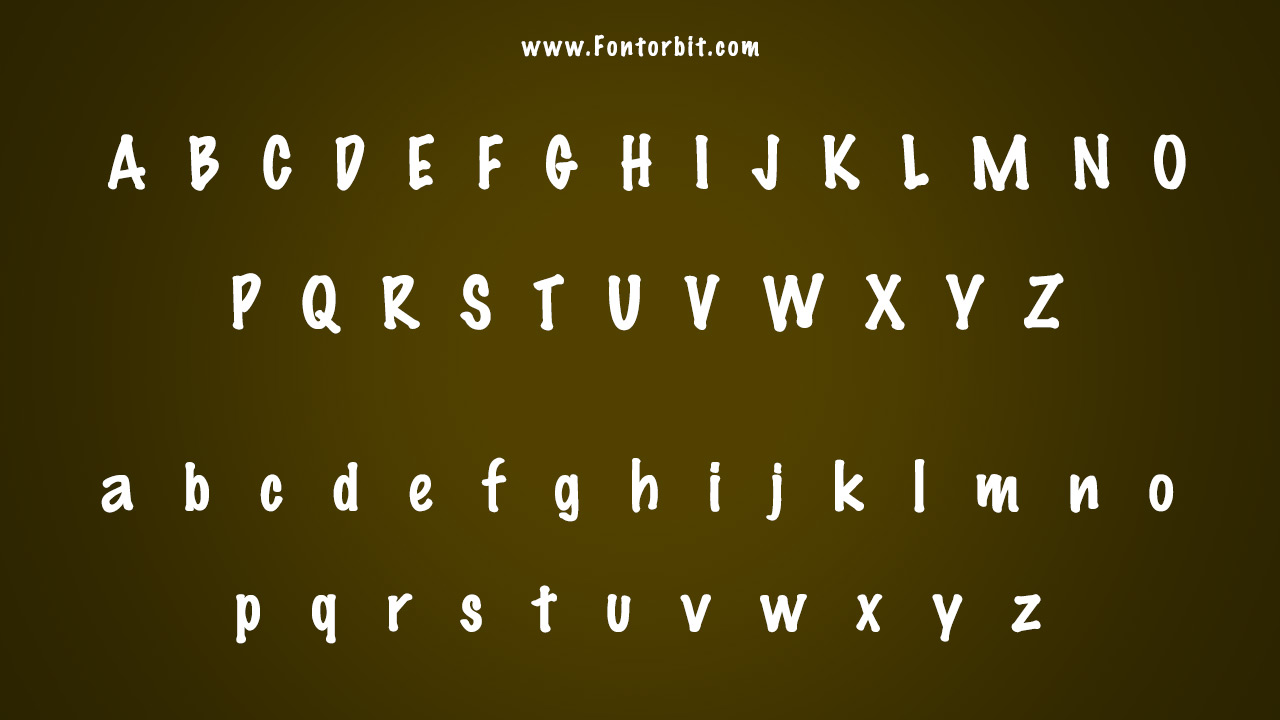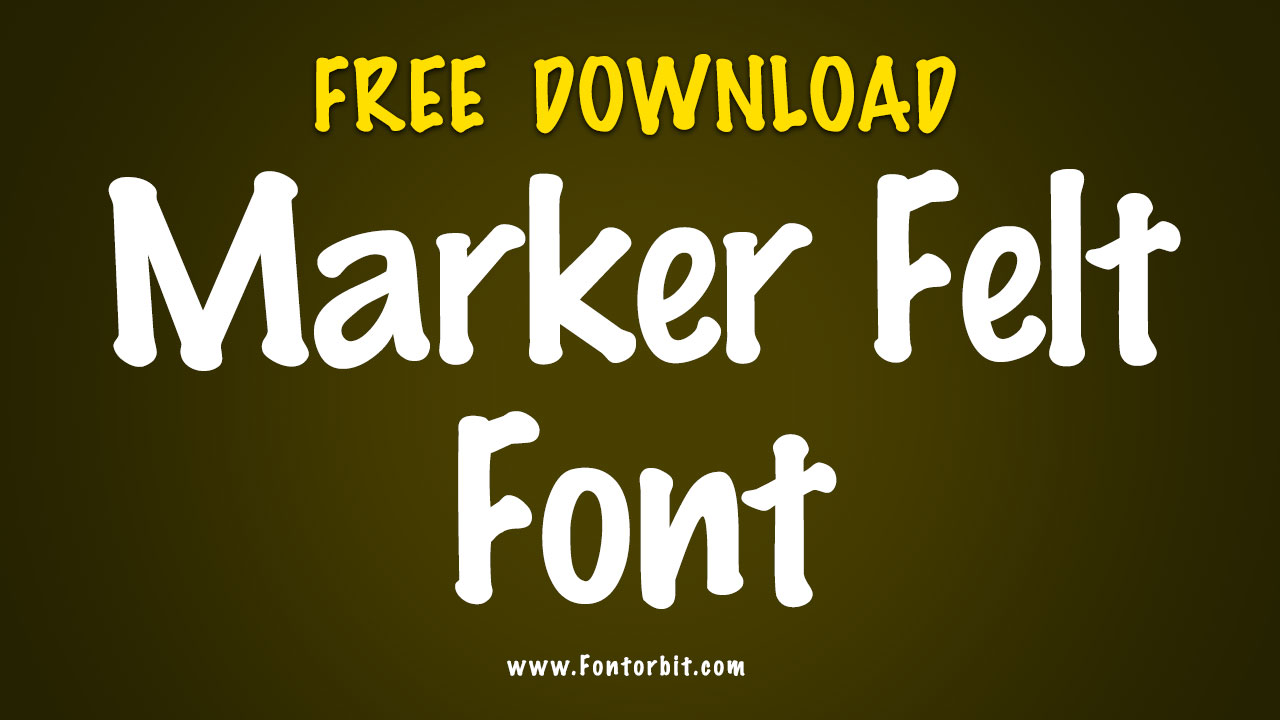
Marker Felt stands out with its casual, handwritten style that mimics the effect of a marker pen. Designed by American Type Designer Dieter Steffmann, this font was first published in 1998. It belongs to the “Marker” font family, known for its playful and informal appearance.
Marker Felt Family Includes
Marker Felt is primarily available in the following styles:
a. Marker Felt Regular
Notable Uses Of Marker Felt
Designers often use Marker Felt in various applications to add a casual, handwritten touch. It is popular in children’s books, educational materials, and informal invitations. The font’s friendly and approachable style makes it suitable for branding and casual digital designs.
Because of its informal nature, Marker Felt works best for:
- Children’s book covers and educational resources
- Invitations and greeting cards
- Casual digital content and web design
- Informal branding materials and advertisements
Marker Felt is a versatile font that adds a touch of whimsy and informality to your designs. Whether used for educational materials or casual invitations, its unique style makes it a great choice for various applications. If you need similar styles, the alternatives listed provide a range of options to suit different needs.
4.Are There Different Styles Of Marker Felt?
Yes, Marker Felt includes Regular, Thin, and Bold styles.